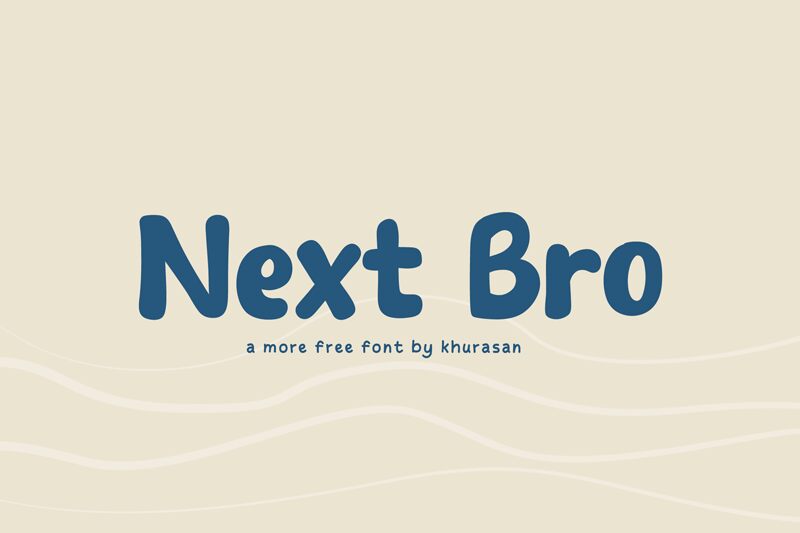
Next Bro, designed by Khurasan, is a modern and cute bold display font that adds a touch of whimsy to any design.
With its cartoon-like style, it is perfect for creating eye-catching posters, playful logos, vibrant magazines, captivating book covers, and attention-grabbing banners. This versatile font can easily be matched to an incredibly large set of projects, allowing you to infuse your creative ideas with a unique charm. Whether you're designing for children's products or aiming for a fun and lively aesthetic in your marketing materials, Next Bro is the ideal choice to make your designs stand out from the crowd.